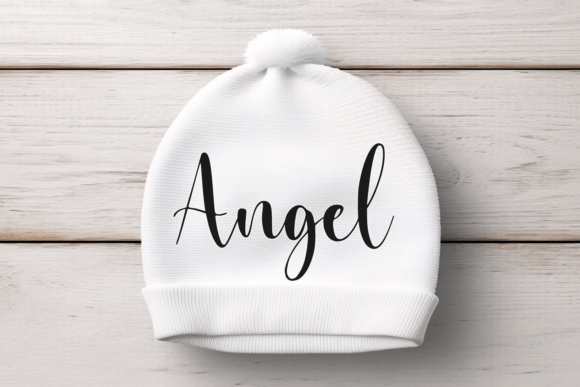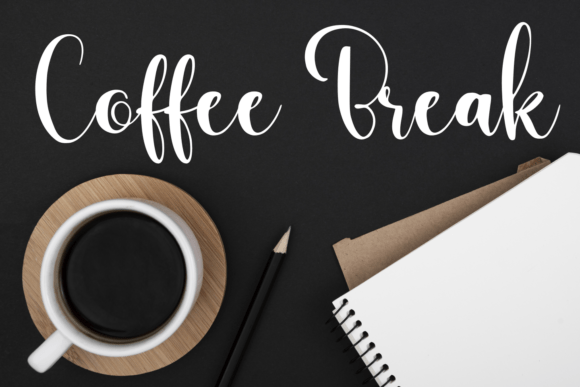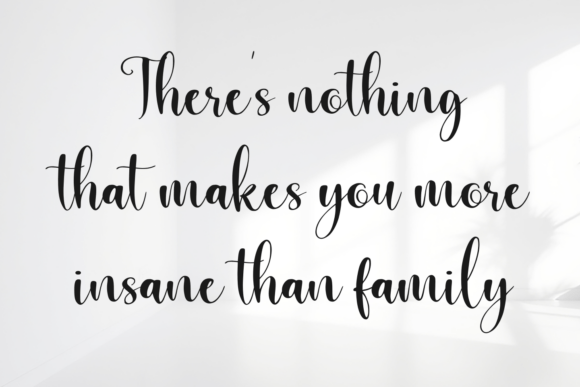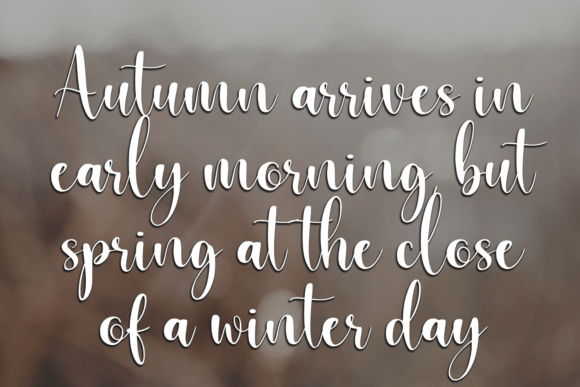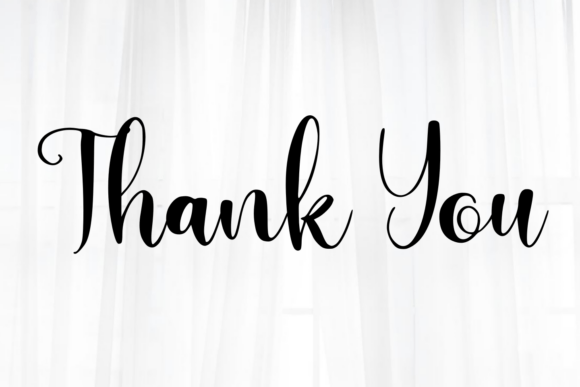
Introducing Butterlove Font: The Sweetest Calligraphy Script for Your Designs
Are you looking for a font that exudes warmth, charm, and elegance? Look no further than Butterlove, a lovely calligraphy script designed to make your designs feel soft, sweet, and full of character. Inspired by gentle hand lettering, Butterlove is the perfect choice for romantic designs, wedding stationery, greeting cards, branding, and heartfelt quotes.
A Font that Flows with Elegance and Charm
Butterlove’s design is rooted in traditional calligraphy, with rounded strokes and graceful curves that give every word a warm, affectionate tone. The letterforms are carefully balanced to feel elegant without being formal, making it ideal for designs that require a touch of sophistication and whimsy. Whether you’re creating a wedding invitation, a love letter, or a brand identity, Butterlove’s smooth flow and natural movement will bring a sense of warmth and personality to your project.
Perfect for Romantic Designs and Crafting
Butterlove is a font that wears its heart on its sleeve, making it perfect for designs that require a romantic touch. Imagine using it for:
- Wedding stationery, such as invitations, save-the-dates, and thank-you cards
- Greeting cards for special occasions, like Valentine’s Day, anniversaries, and birthdays
- Branding and packaging for businesses that want to convey a sense of warmth and approachability
- Heartfelt quotes and phrases that need a touch of elegance and whimsy
A Handcrafted Touch with Clean Readability
One of the standout features of Butterlove is its ability to add a handcrafted touch to your designs without sacrificing readability. The font’s subtle variations and natural movement give it a sense of authenticity, while its clean lines and balanced letterforms ensure that it remains easy to read across different layouts and applications.
- Alternates and swashes to add variety and personality to your designs
- Ligatures and flourishes to enhance the font’s natural flow and movement
- Accents and diacritical marks to support a wide range of languages and scripts
Why Choose Butterlove Font?
So why choose Butterlove font for your next design project? Here are just a few reasons:
- Unique and charming design that will set your project apart
- Highly versatile and adaptable to different layouts and applications
- Elegant and sophisticated without being too formal or over-the-top
- Easy to read and use, with clean lines and balanced letterforms
Get Ready to Fall in Love with Butterlove